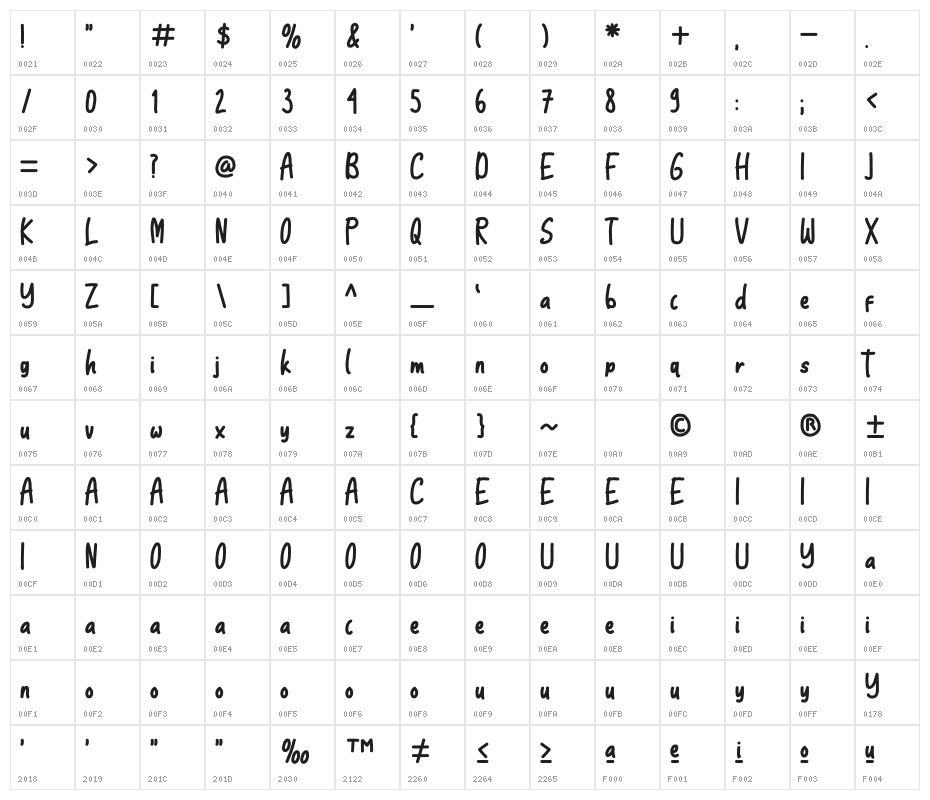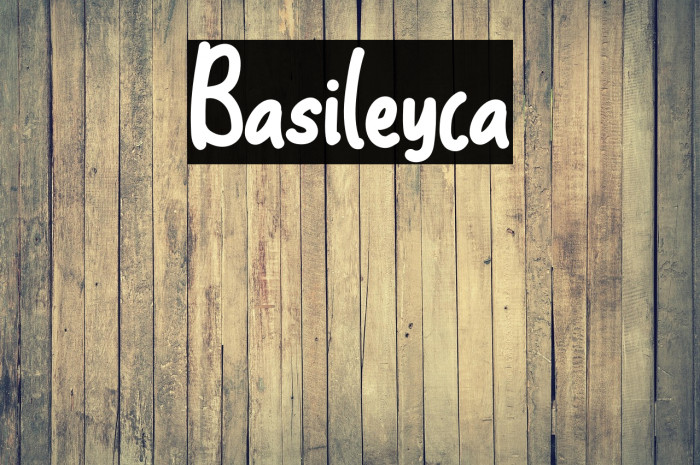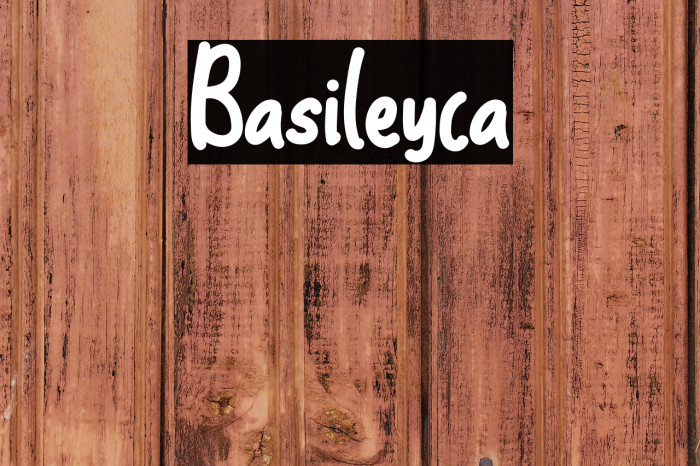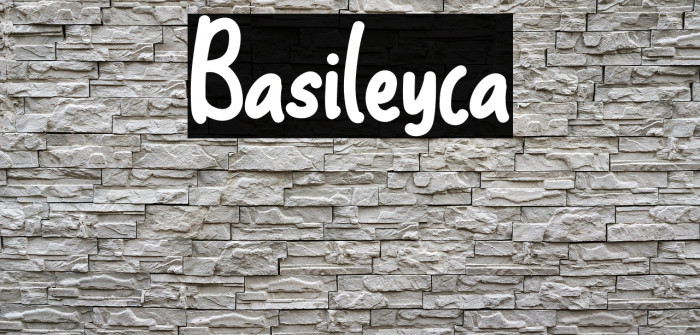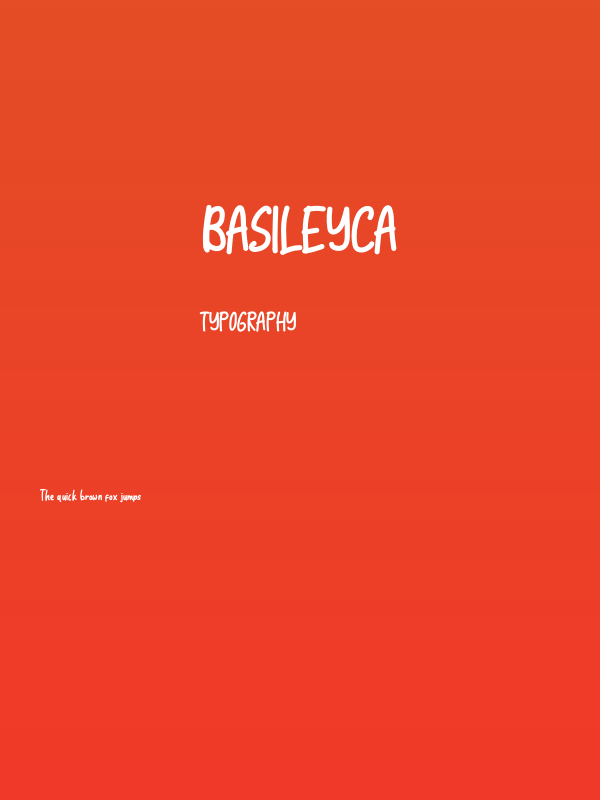
Basileyca Font
Basileyca Description
A playful, handwritten font with a casual and friendly appearance. The letters are slightly irregular, adding a personal touch.
Overall StylePlayful, Casual
Use CaseHeadlines, Informal text
Proposed ProjectsGreeting cards, children's books, informal invitations.